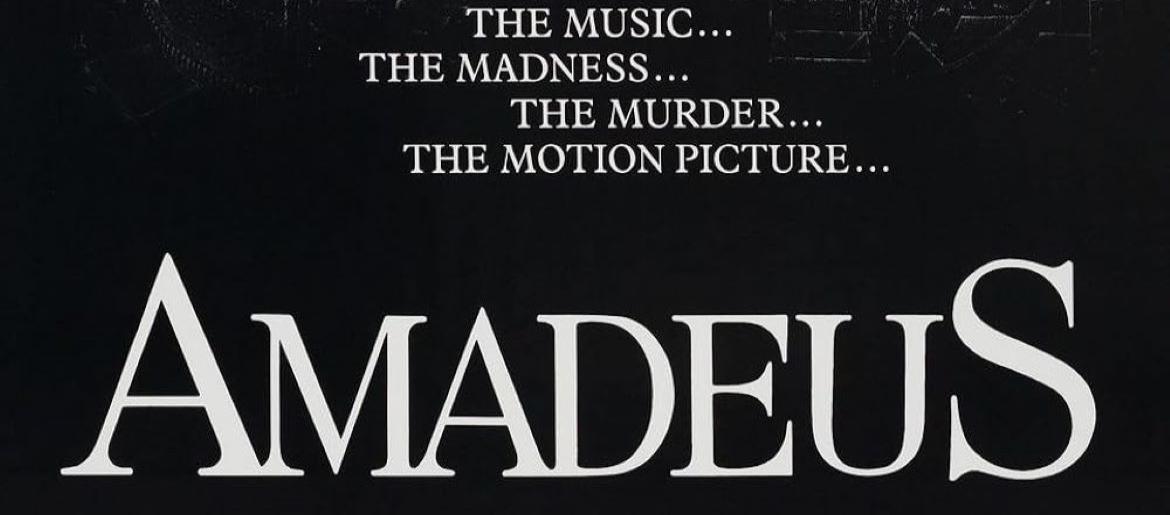
Amadeus Font
The Amadeus font reflects the grandeur and dramatic flair of Miloš Forman’s 1984 masterpiece about the life and genius of Wolfgang Amadeus Mozart. Just as the film blends music, passion, and rivalry, the typography conveys refinement and artistry, bringing a sense of history and timelessness to the screen. The movie’s title design leans on a classical serif style, echoing the elegance of 18th-century Europe. Fonts such as Didot, Bodoni, or Garamond come closest to replicating the Amadeus font, with their high contrast, graceful curves, and sophisticated presence exuding a theatrical quality perfect for a story centered on music, ambition, and genius.
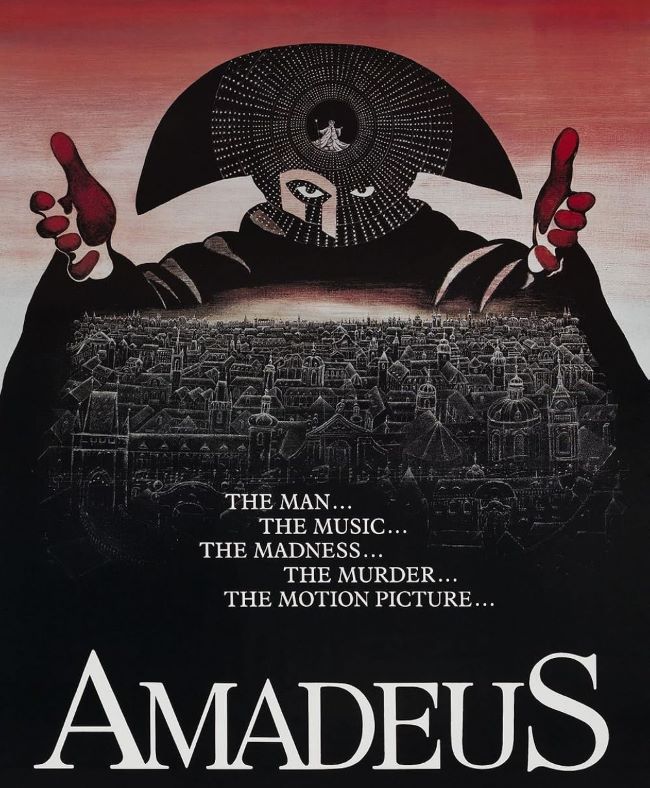
The strength of the Amadeus font lies in its ability to feel both historical and modern. It recalls the grand opera houses and candlelit manuscripts of Mozart’s time, while also remaining readable and versatile for contemporary design. The Amadeus font is more than just lettering—it’s a visual echo of the drama, rivalry, and genius that define the film. By using fonts inspired by it, you can bring an extra layer of elegance and classical sophistication to your own creative projects.